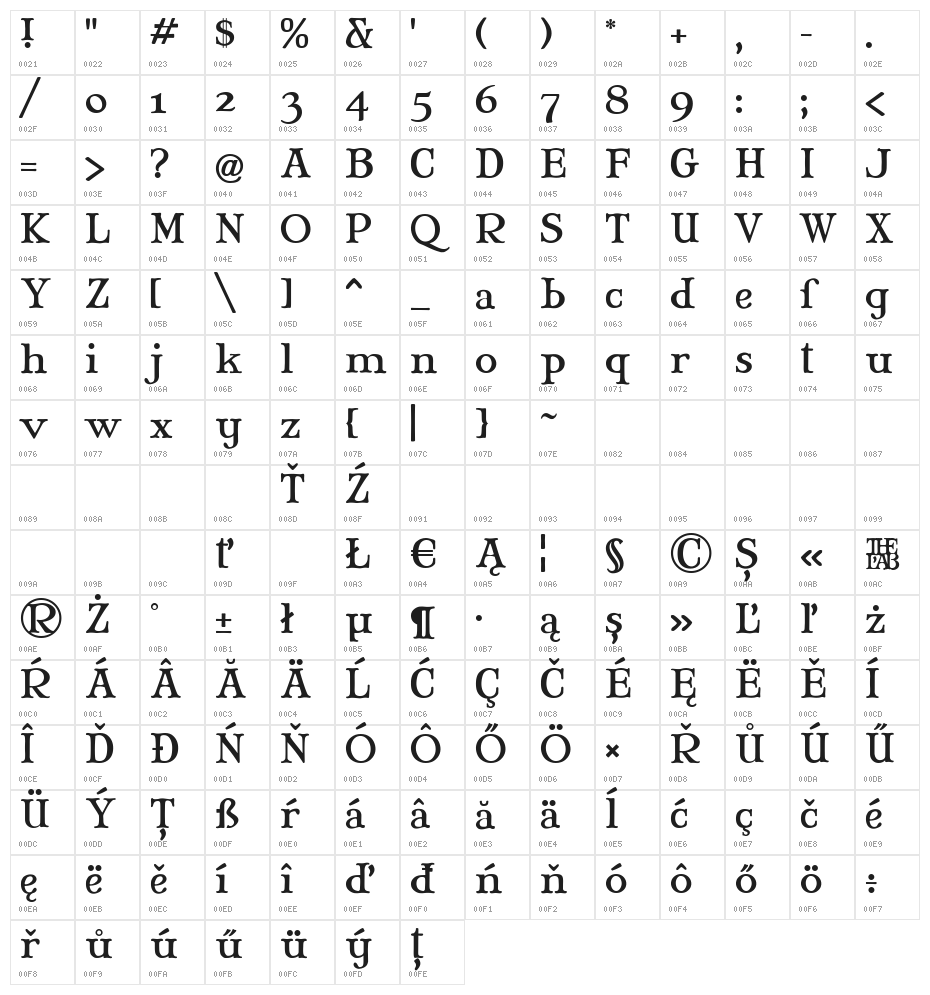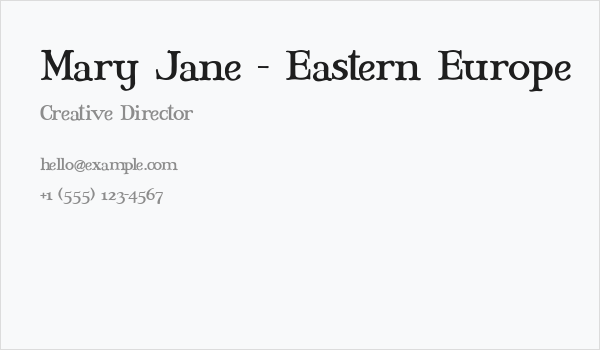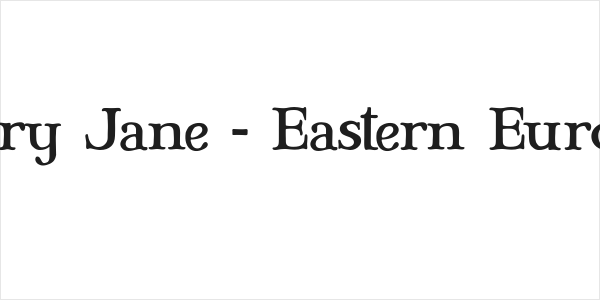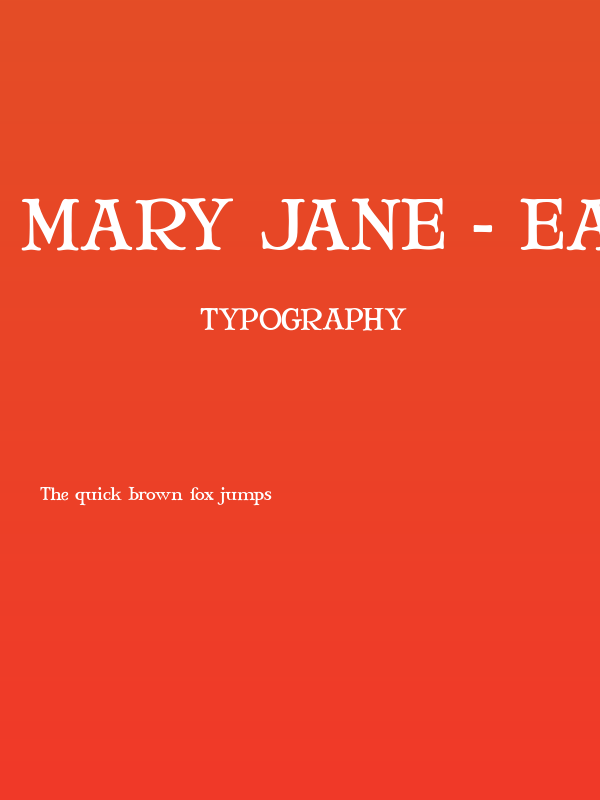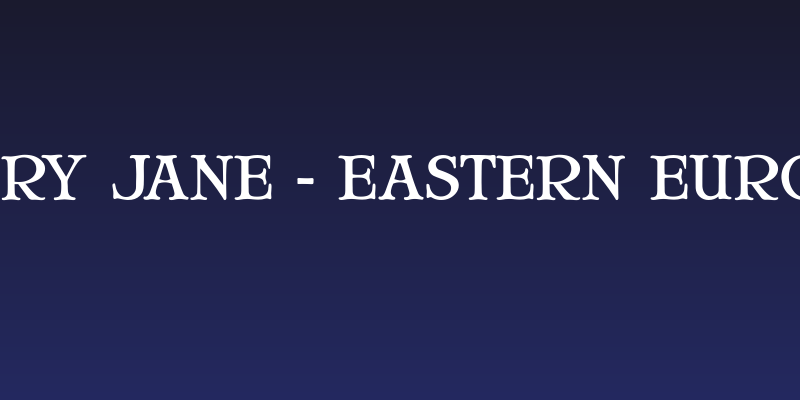
Mary Jane - Eastern Europe Font
Mary Jane - Eastern Europe Description
This font features a classic serif style with elegant curves and a slightly vintage feel. The uppercase letters are bold and commanding, while the lowercase letters maintain a consistent flow with subtle serifs that add a touch of sophistication. The numerals are well-proportioned, matching the overall aesthetic of the alphabet. Special characters are designed with the same attention to detail, ensuring a cohesive look across all glyphs. The font's design is suitable for projects that require a traditional yet stylish appearance, making it versatile for various applications.
| Proposed Projects | Ideal for book covers, editorial design, branding, and formal invitations. |